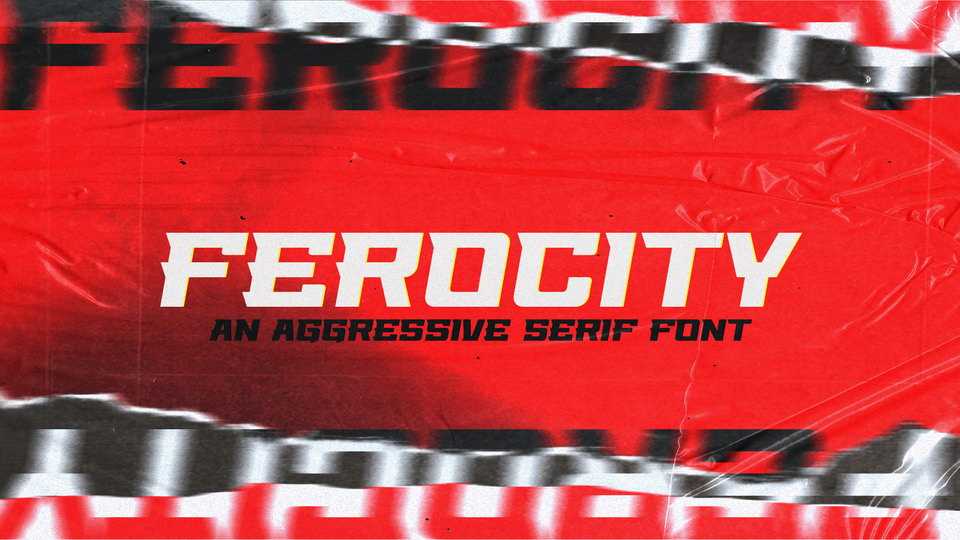
Download Ferocity font, a bold and aggressive display serif typeface in two styles: Regular and Italic. Ferocity is perfect for sport logos and labels, posters, movie titles and loud headlines.